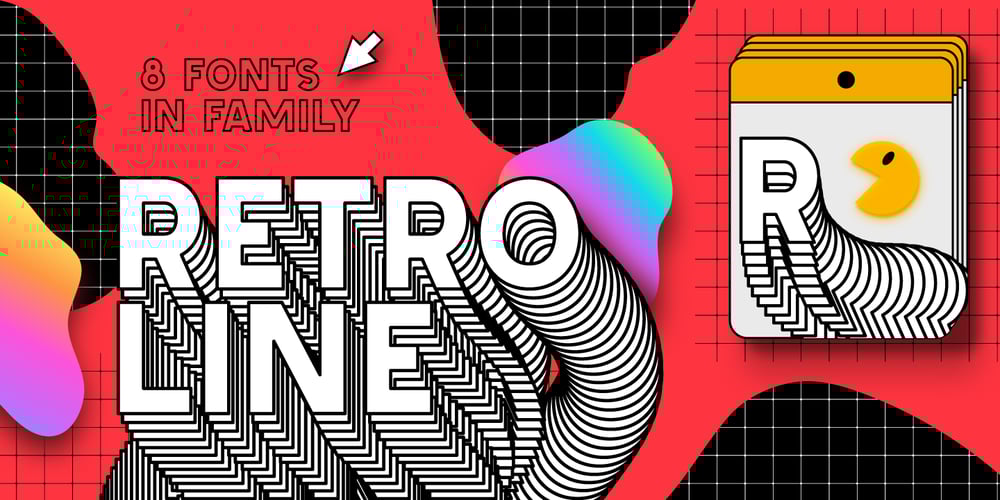
Retroline. Retro Style Font Family was designed by Lauritta Ivanova and published by Luxfont. Retroline. Retro Style contains 8 styles and family package options. Introducing color Retro font family. Modern retro design dictates its own rules and graphic techniques – one of which is fonts with outlines. Retroline font family embodies this. 4 fonts with black stroke and white fill, and 4 fonts with only black stroke are perfect for retro illustrations.Color scheme of colored fonts is convenient and easy to recolor in graphics programs. Retroline fits comic illustrations or designs from the 90sFeatures:8 fonts in family:- 4 color fonts with fill & outline- 4 fonts with outline only 2 weights of fonts 2 weight of outline Kerning IMPORTANT:- OTF SVG fonts contain vector letters with gradients and transparency.- Multicolor OTF version of this font will show up only in apps that are compatible with color fonts, like Adobe Photoshop CC 2017.0.1 and above, Illustrator CC 2018. Learn more about color fonts & their support in third-party apps on www.colorfonts.wtf- Don’t worry about what you can’t see the preview of the font in the tab “Individual Styles” – all fonts are working and have passed technical inspection, but not displayed, they just because the website MyFonts is not yet able to show a preview of colored fonts. Then if you have software with support colored fonts – you can be sure that after installing fonts into the system you will be able to use them like every other classic font.Question/answer: How to install a font? The procedure for installing the font in the system has not changed. Install the font as you would install the classic OTF | TTF fonts. How can I change the font color to my color? · Adobe Illustrator:Convert text to outline and easily change color to your taste as if you were repainting a simple vector shape. · Adobe Photoshop: You can easily repaint text layer with Layer effects and color overlay. ld.luxfont@gmail.com